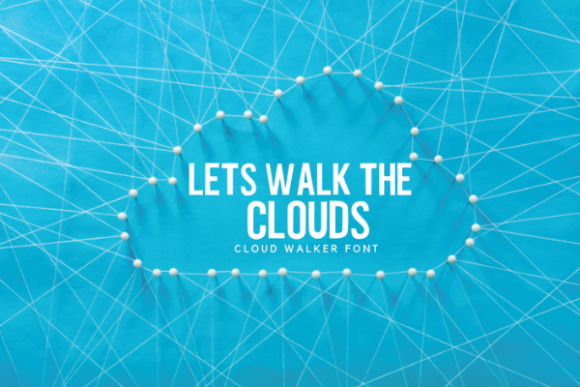
Discover the Elegance of Cloud Walker Font: Elevate Your Designs with a Casual Touch
Are you on the hunt for a font that can effortlessly breathe life into your creative projects? Look no further than the Cloud Walker Font, an incredibly inspiring and light sans serif font that exudes a casual feel. This versatile typeface is designed to help turn any creative idea into a truly original piece of art, making it a must-have for designers and crafters alike.
The Essence of Cloud Walker Font
Cloud Walker is characterized by its clean lines, airy feel, and a sans serif design that screams modernity and simplicity. Its light nature ensures that your designs remain uncluttered and elegant, while its casual vibe adds a touch of approachability and warmth. Whether you’re working on a branding project, crafting a unique invitation, or designing a website, Cloud Walker Font can help you achieve a look that’s both contemporary and endearing.
Key Features of Cloud Walker Font
- Inspirational and Creative: Cloud Walker is more than just a font; it’s a tool for creativity. Its unique style can inspire new ideas and help you see your projects in a fresh light.
- Light and Airy: The font’s light nature ensures that your text remains easy to read and visually appealing, perfect for both digital and print materials.
- Casual Feel: The casual vibe of Cloud Walker makes it ideal for designs that require a friendly and approachable tone, from social media graphics to personal stationery.
- Sans Serif Design: The clean and modern sans serif design of Cloud Walker ensures that your text looks sleek and professional, suitable for a wide range of applications.
- Versatility: One of the standout features of Cloud Walker Font is its versatility. It can be used in various design projects, from elegant business cards to playful posters.
How to Use Cloud Walker Font in Your Designs
Why Designers and Crafters Love Cloud Walker Font
Cloud Walker Font has quickly become a favorite among designers and crafters for several reasons:
- Easy to Read: Despite its light and airy feel, Cloud Walker remains highly legible, making it perfect for body text and headlines.
- Unique Style: The font’s unique style sets it apart from more traditional typefaces, allowing designers to create truly distinctive designs.
| Font Name | Cloud Walker Font |
| Author | RainbowGraphicx |
Cloud Walker Font is an incredibly inspiring and light sans serif font with a casual feel that can help turn any creative idea into a truly original piece of art. Its unique blend of modernity, elegance, and approachability makes it a valuable addition to any designer’s toolkit. Whether you’re a seasoned professional or just starting out, Cloud Walker Font is sure to elevate your designs and inspire new creativity.